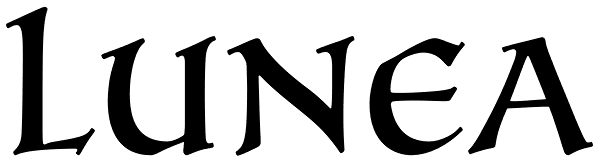
Missale Lunea
Missale Lunea is a calligraphic uncial typeface with a female note. The font offers lots of stylistic alternates, signs, zodiacs & symbols. OpenType features: over 600 glyphs central European faces stylistic alternates signs, zodiac & symbols...